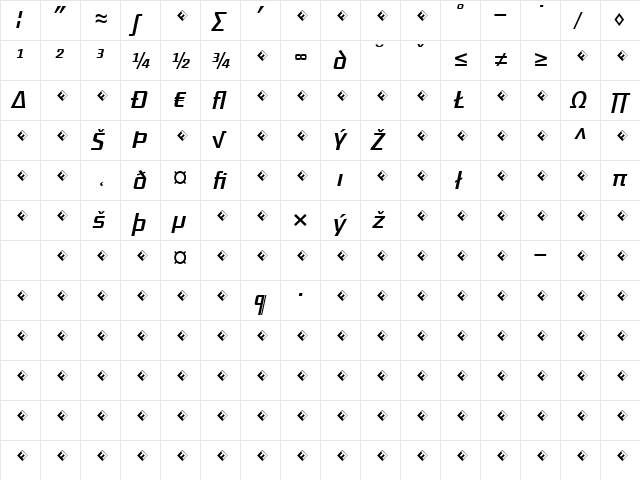
District-RegularItaExp Regular
| Foundry | FontShop International |
| Designer | Albert Boton |
Design Context for District-RegularItaExp Typeface
District-RegularItaExp is a composed and adaptable typeface that performs quietly and consistently across a wide range of design contexts.